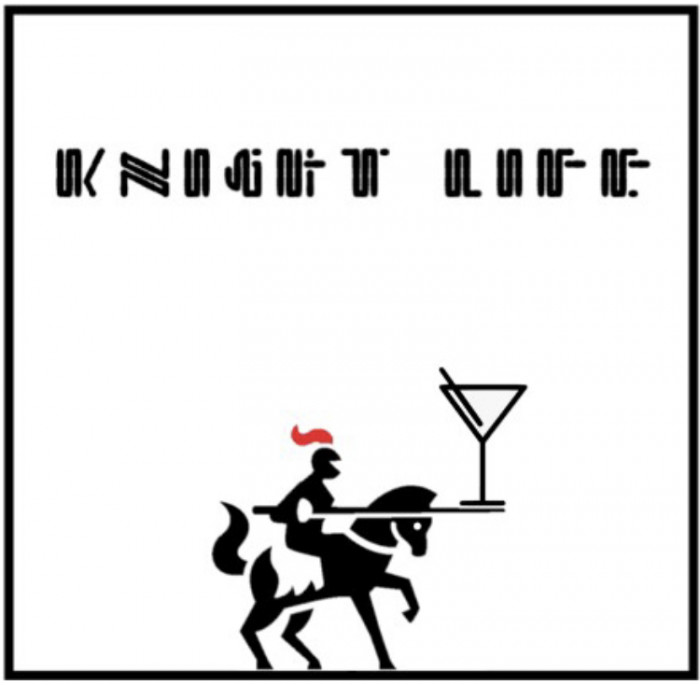
• a venture into neon art deco, inspired by tortoiseshell's "night lyfe" (hence the name~)
very cool.... but, the g and j are hard to tell.
I like how most of the numbers are only made of straight lines (except for 0, that is)